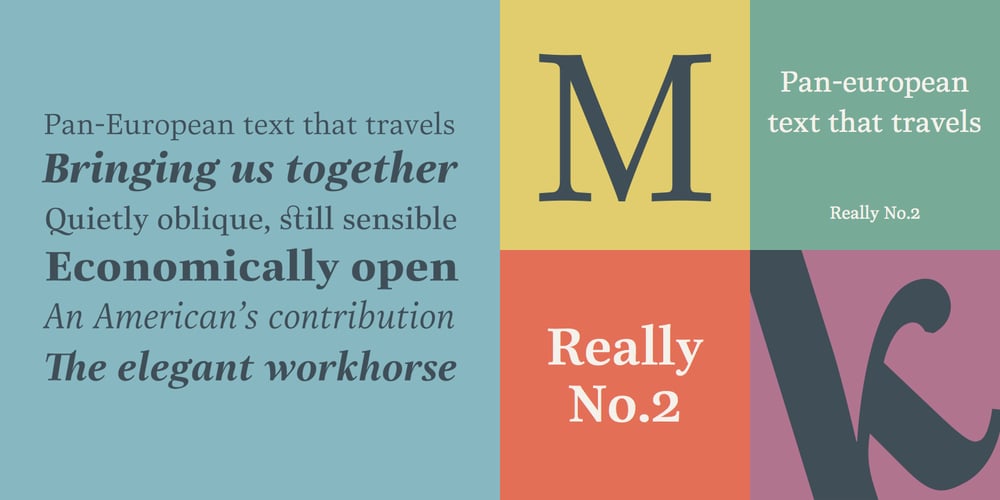
Really No 2
Really No 2 font
Really No 2 Font Family was designed by Gary Munch and published by Linotype. Really No 2 contains 56 styles and family package options. Really No. 2 is a redesign and update of Linotype Really, a typeface that Gary Munch first designed in 1999. The new Really No. 2 offers seven weights (Light to Extra Bold), each with an Italic companion. Additionally, Really No. 2 offers significantly expanded language support possibilities. Customers may choose the Really No. 2 W1G fonts, which support a character set that will cover Greek and Cyrillic in addition to virtually all European languages. These are true pan-European fonts, capable of setting texts that will travel between Ireland and Russia, and from Norway to Turkey. Customers who do not require this level of language support may choose from the Really No. 2 Pro fonts (just the Latin script), the Really No. 2 Greek Pro fonts (which include both Latin and Greek), or the Really No. 2 Cyrillic Pro fonts (Latin and Cyrillic). Each weight in the Really No. 2 family includes small capitals and optional oldstyle figures, as well as several other OpenType features. Really No. 2’s vertical measurements are slightly different than the old Linotype Really’s; customers should not mix fonts from the two families together. As to the design of Really No. 2’s letters, like Linotype Really, the characters’ moderate-to-strong contrast of its strokes recalls the Transitional and Modern styles of Baskerville and Bodoni. A subtly oblique axis recalls the old-style faces of Caslon. Finally, sturdy serifs complete the typeface’s realist sensibility: a clear, readable, no-nonsense text face, whose clean details offer the designer a high-impact selection.